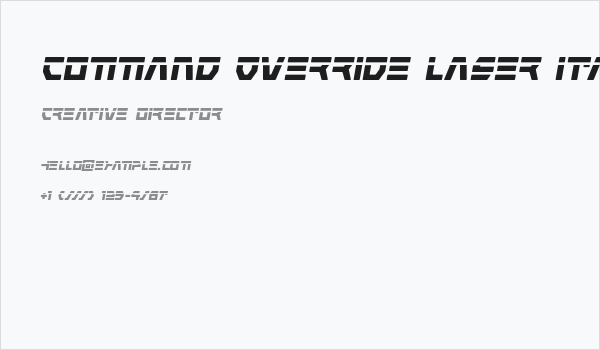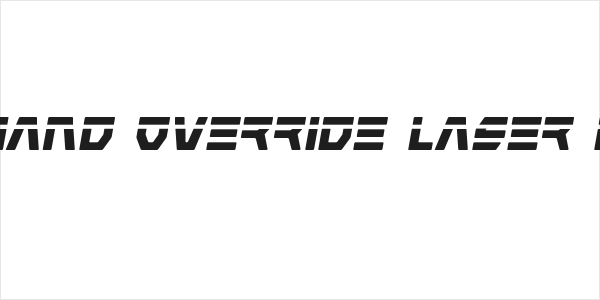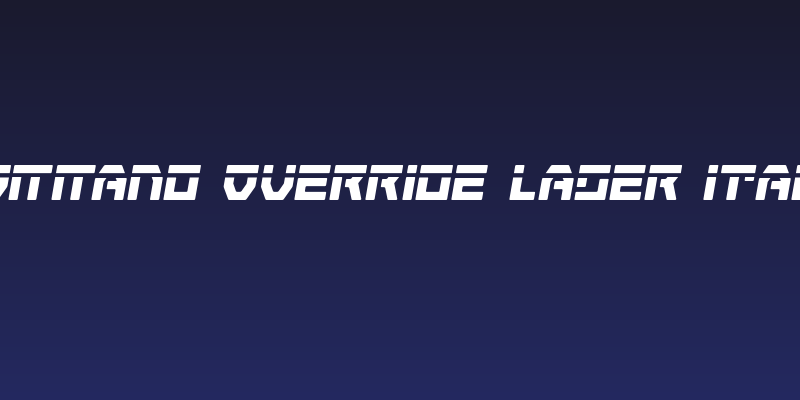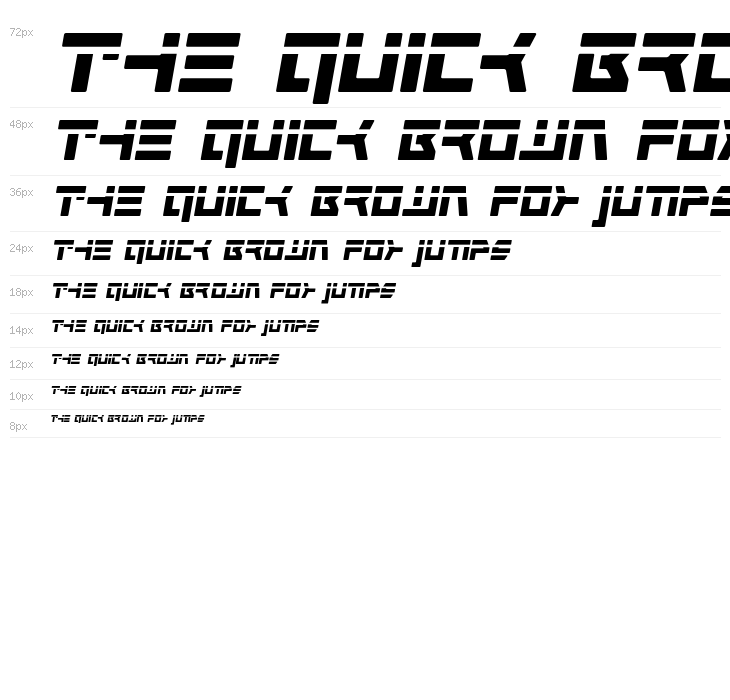
Command Override Laser Italic Font
Command Override Laser Italic Description
This font features a futuristic and angular design, characterized by sharp edges and geometric shapes. The letters are bold and italicized, giving a sense of movement and speed. The uppercase and lowercase letters maintain a consistent style, with a strong emphasis on horizontal lines and diagonal cuts. Numbers and special characters follow the same aesthetic, ensuring uniformity across all glyphs. The overall appearance is sleek and modern, making it suitable for projects that require a high-tech or sci-fi theme.
| Proposed Projects | Ideal for sci-fi themed designs, tech branding, video game titles, and futuristic posters. |